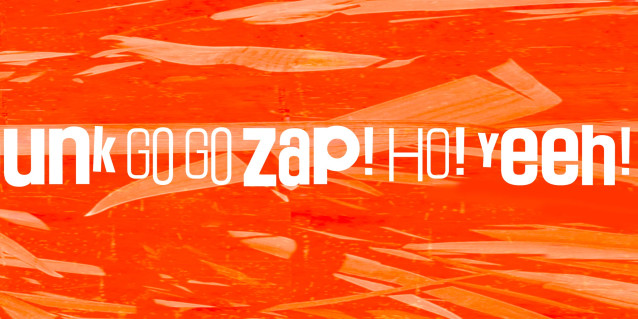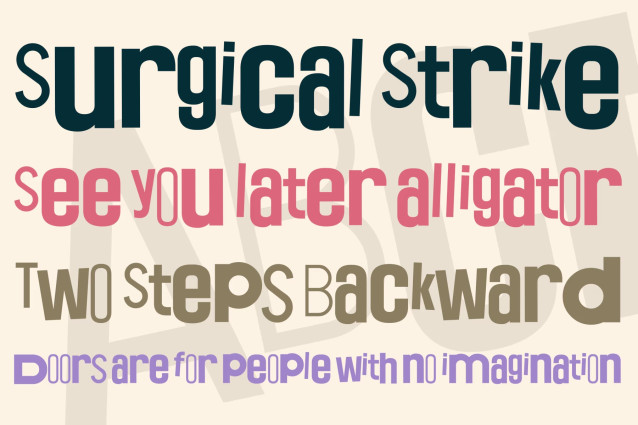
CTCZ Plingbhunk Go Go Zap! HO! Yeeh! Font
CTCZ Plingbhunk Go Go Zap! HO! Yeeh! Font, suitable for any design needs : logo, branding, modern advertising design, logos, poster quote, book / cover Title, editorial design, website / blog, card, t-shirts, and any hand-lettered needs.